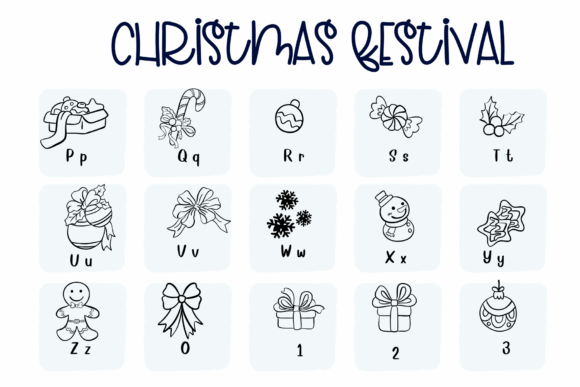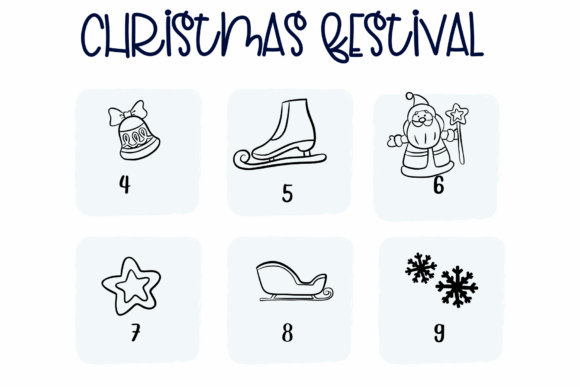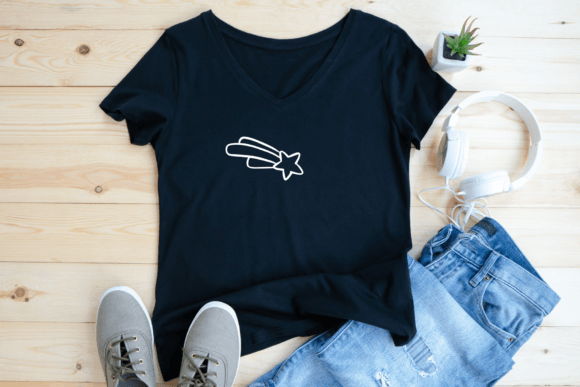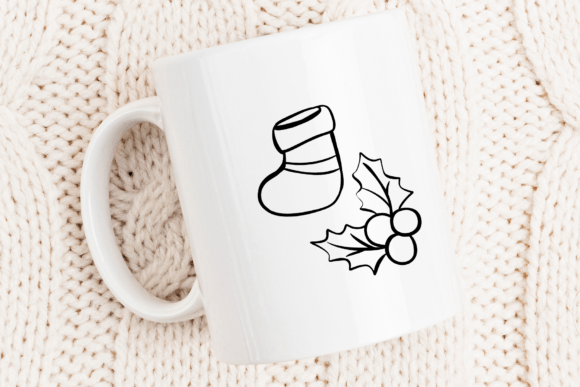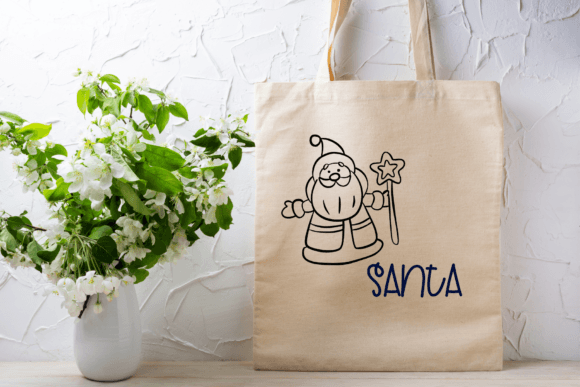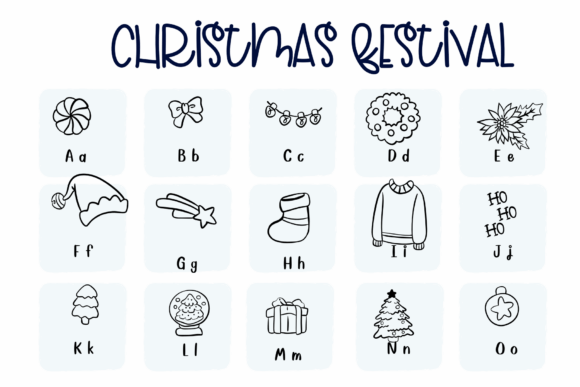
Enter the Christmas Festival Font, a delightful dingbats font that brings the magic of the season to your creative projects. With its festive theme, this font is the perfect accompaniment to your holiday crafts, decorations, and logos. Whether you’re a seasoned designer or a crafty enthusiast, the Christmas Festival Font is an invaluable tool that will elevate your creations to the next level.
Key Features of Christmas Festival Font
- Unique Characteristics: Decorative, festive design with intricate details and ornaments, ideal for holiday-themed projects
Christmas Festival Font Review
Overall, the Christmas Festival Font is a delightful addition to any holiday design project. ✨ Its festive and playful vibe is sure to bring a smile to anyone’s face. The font is well-suited for titles, headings, and even body text, making it a great choice for a variety of applications.
Here are some specific things that work well:
- ✨ The font’s bold and expressive strokes add a lot of visual interest.
- ✨ The use of ornaments and flourishes adds a touch of whimsy and festivity.
- ✨ The font is highly customizable, making it easy to adjust the size, color, and style to fit your design needs.
- ⚠️ The font may not be suitable for formal or traditional holiday designs, as it has a more playful and modern feel.
- ⚠️ Some of the ornaments and flourishes may be a bit too elaborate for certain design applications.
Overall, I think the Christmas Festival Font is a great choice for anyone looking to add a fun and festive touch to their holiday designs. With a little creativity and experimentation, it’s sure to be a hit!
The Christmas Festival font is perfect for creating festive holiday designs, such as:
- Christmas card invitations
- Holiday party decorations
- Seasonal marketing materials
Remember to use the font consistently throughout your design to create a cohesive and festive look.